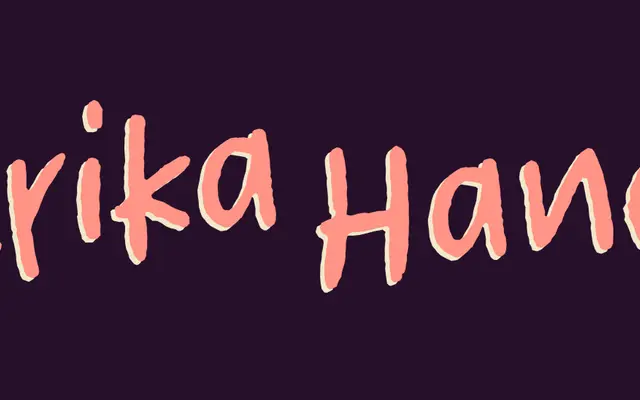
A single-weight handwritten script from Indian Type Foundry, designed for informal and casual typographic uses.
A casual handwritten script offered in one weight, positioned for uses where a personal, hand-drawn quality is needed. The family contains just one font, keeping its scope narrow and its application focused. Suited to packaging, greeting cards and similar contexts where a natural pen-written feel is appropriate.
Classified as a script by ITF; the name and visual style indicate a casual handwritten typeface, consistent with the script category.